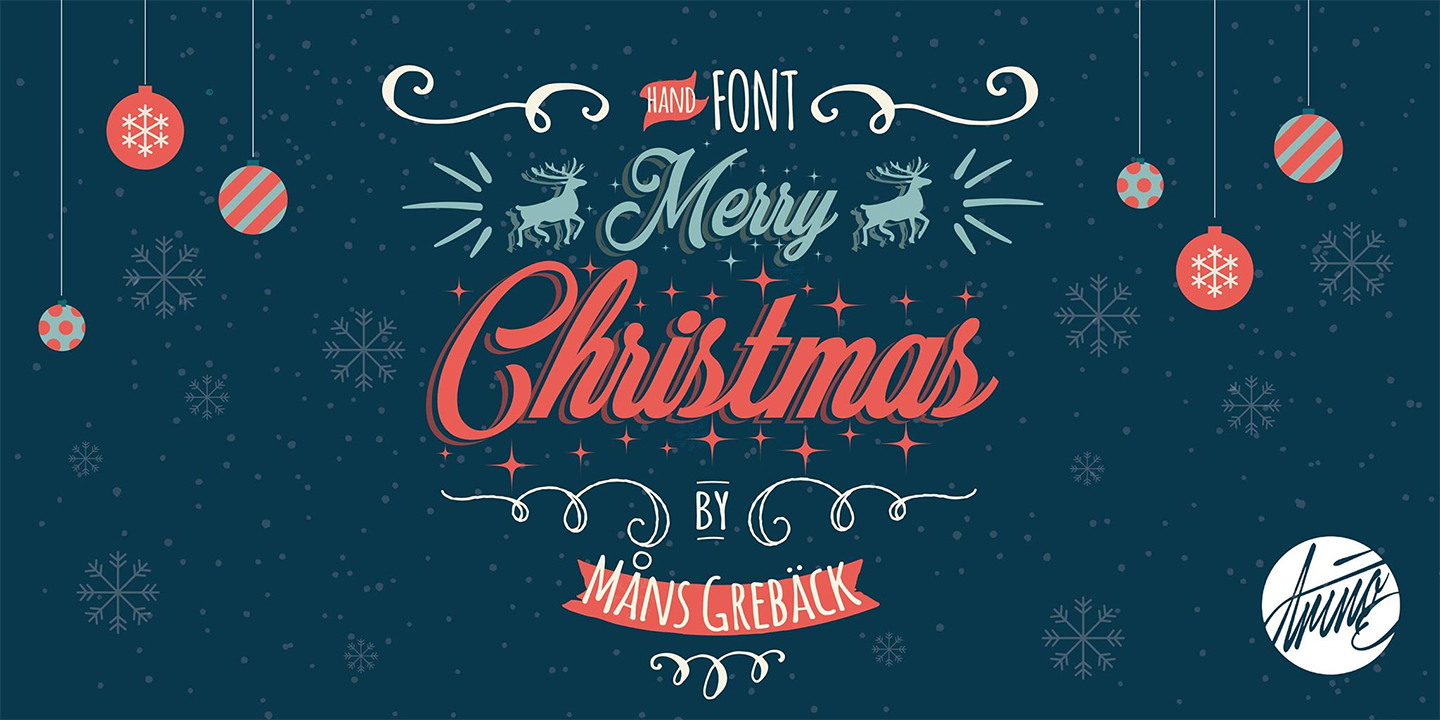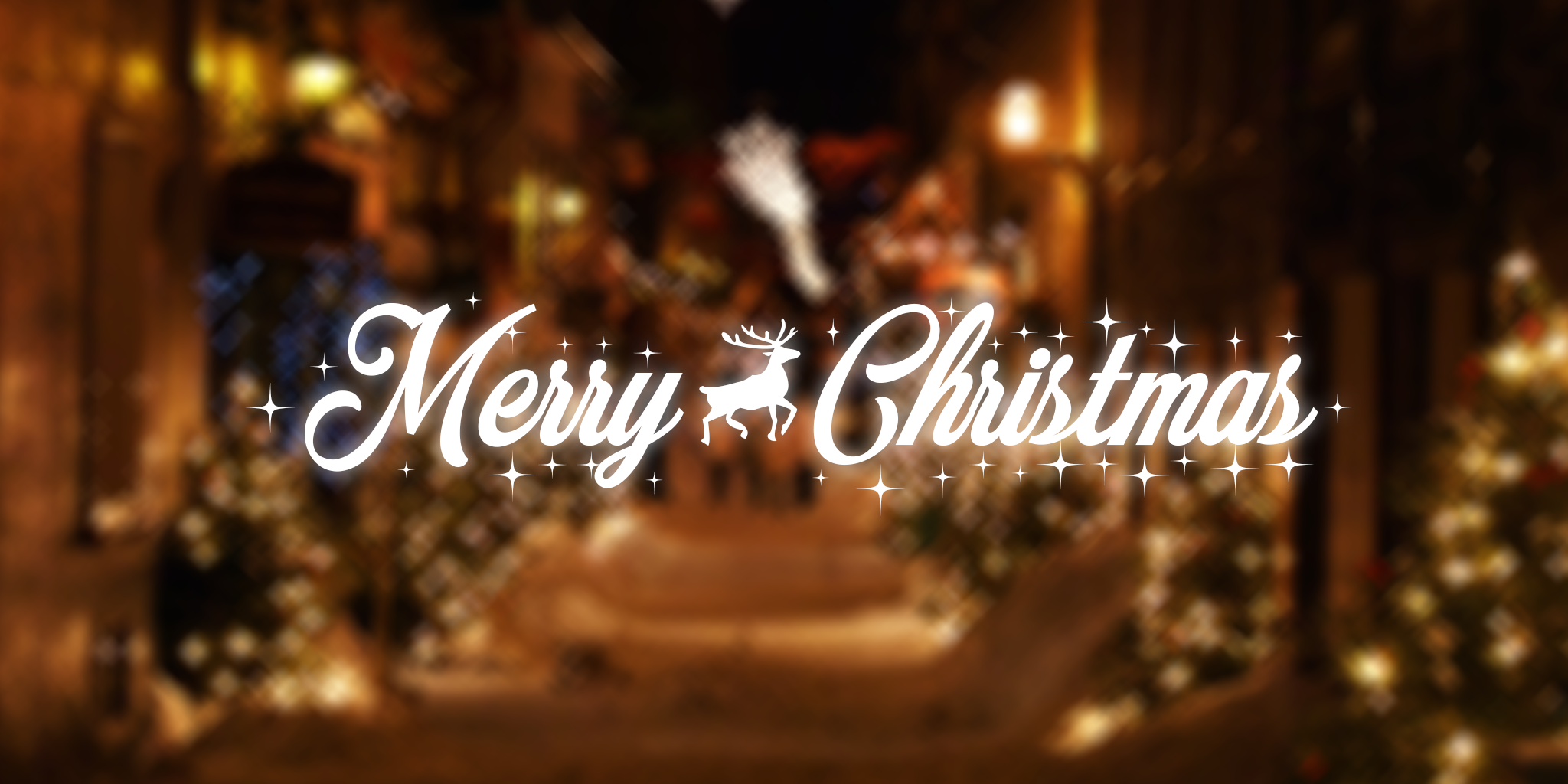
Merry Christmas Flake
Swirly holiday script paired with reindeer and ornament icons
Merry Christmas Flake is an elegant, swirling cursive script for its letters, but the real bonus is hidden in the number keys: a reindeer, a Christmas tree, a gingerbread man, a wrapped gift, an ornament, a snowflake, a star, and a heart are all tucked in as bonus dingbats alongside the alphabet.